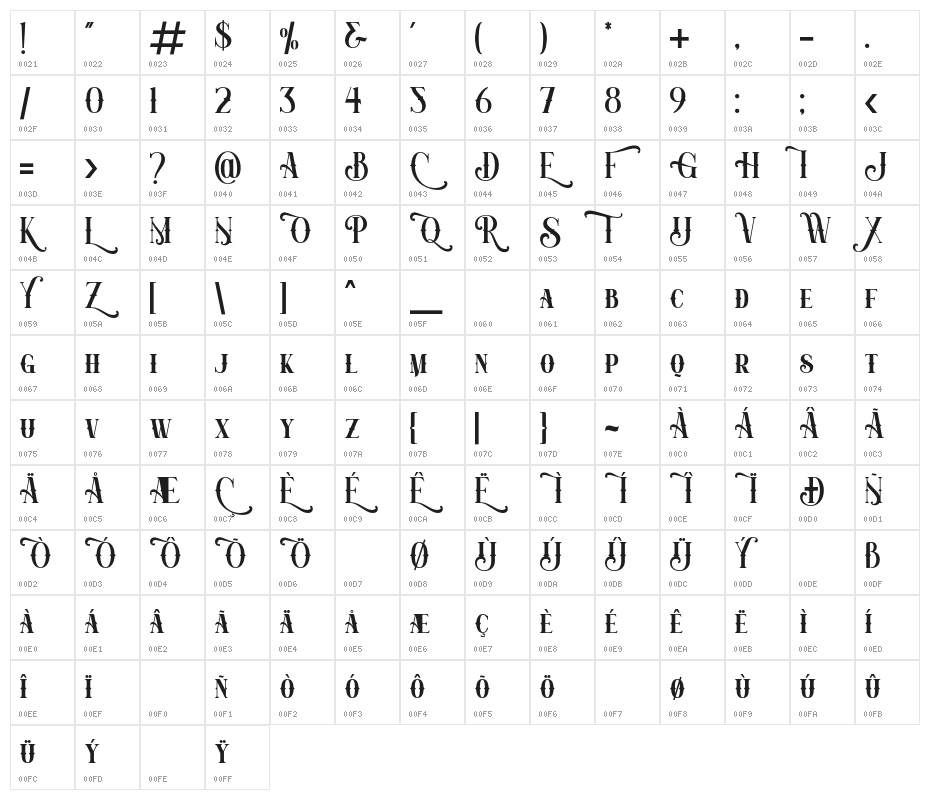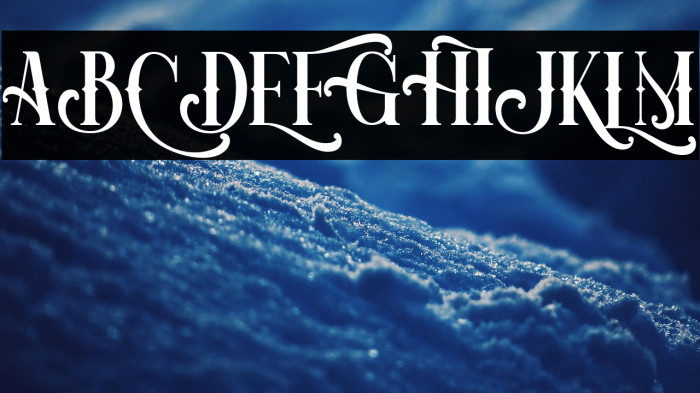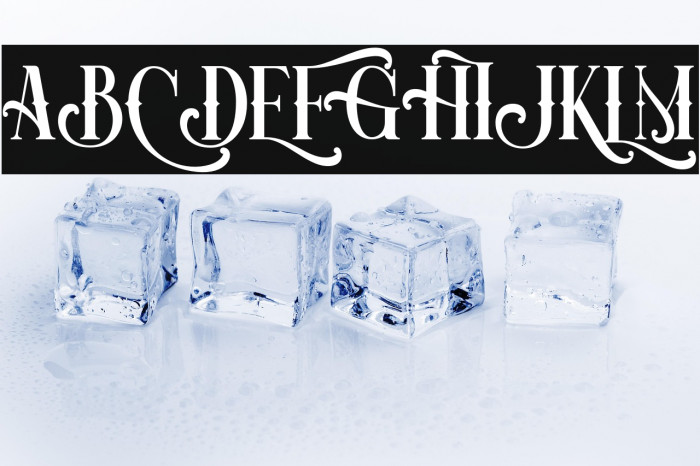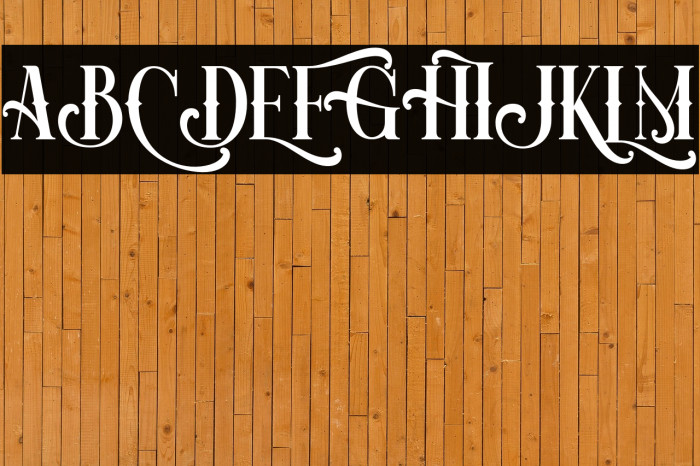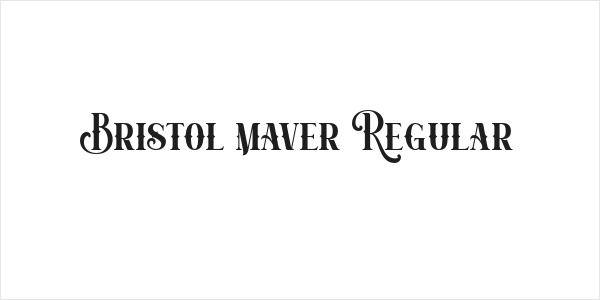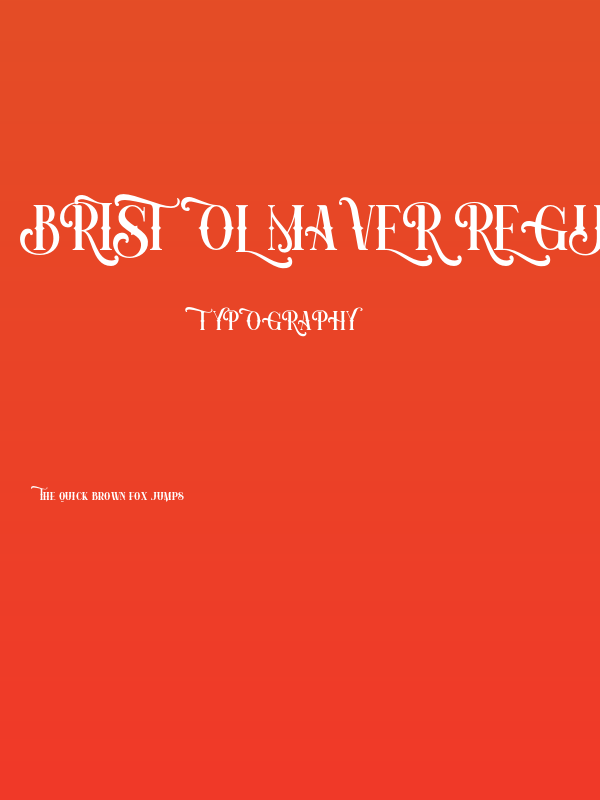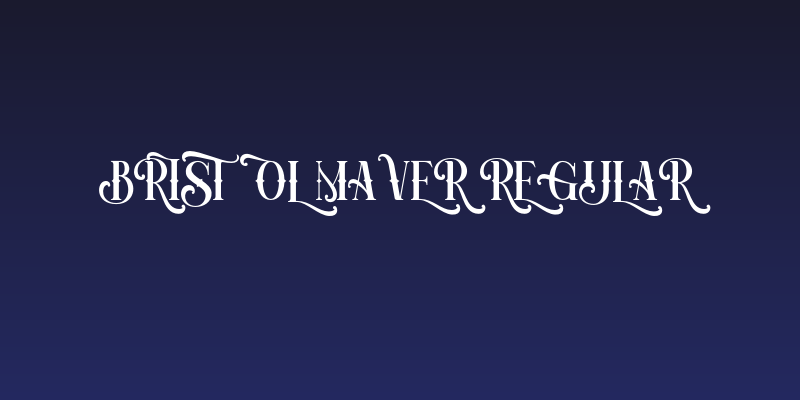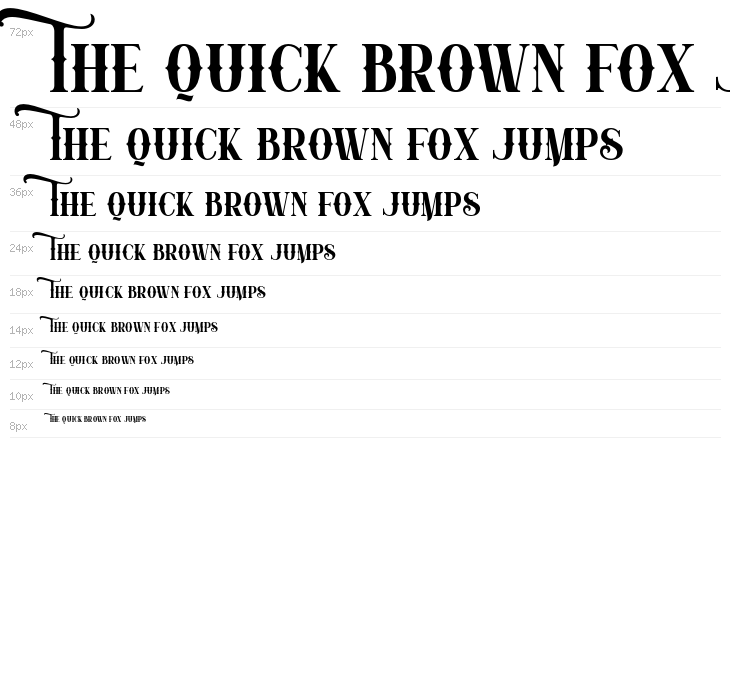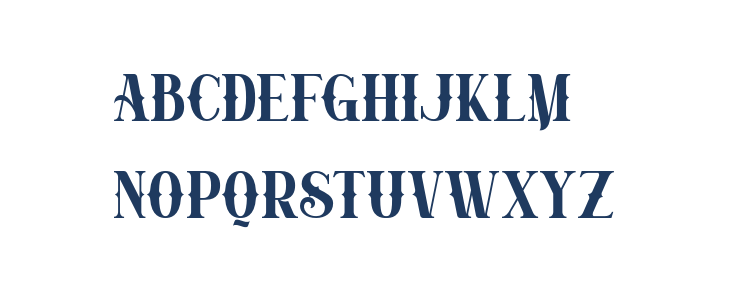
Bristol maver Regular Font
Bristol maver Regular Description
This font features a bold and dramatic style with a strong decorative flair. The uppercase letters are adorned with intricate swirls and flourishes, giving it a vintage and ornate appearance. The lowercase letters maintain a consistent boldness, complementing the uppercase with a slightly more restrained design. Numbers and special characters follow the same bold and decorative theme, ensuring a cohesive look across all characters. The overall design is reminiscent of classic signage or poster fonts, making it ideal for projects that require a touch of elegance and historical charm.
| Proposed Projects | Ideal for vintage-themed posters, signage, branding, and invitations. |